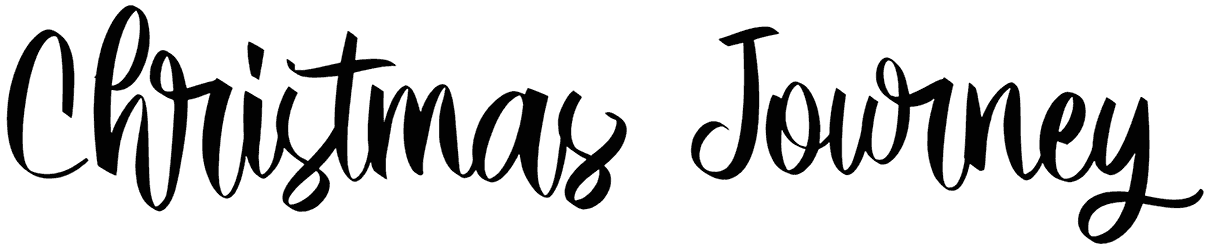
Christmas Journey Font
Christmas Journey is a cursive handwriting font that offers hand-drawn informal characters; they are friendly and add a unique personality to your typography! It has a classy and beautiful design; it looks naturally attractive.
Christmas Journey and its full set of lovely letterforms can be included in books, posters, branding, greeting cards, and wherever you wish. It is also suitable for Christmassy designs and projects, as it gives happy and positive vibes!!